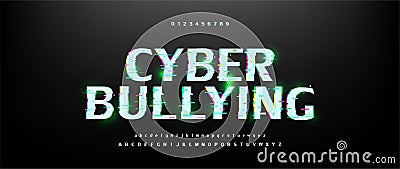
Cyberbullying, Letters font, and number design distorted glitch and technology style. Typography fonts uppercase and lowercase. #191961178
Cyberbullying, Letters font, and number design distorted glitch and technology style. Typography fonts uppercase and lowercase. Vector illustration